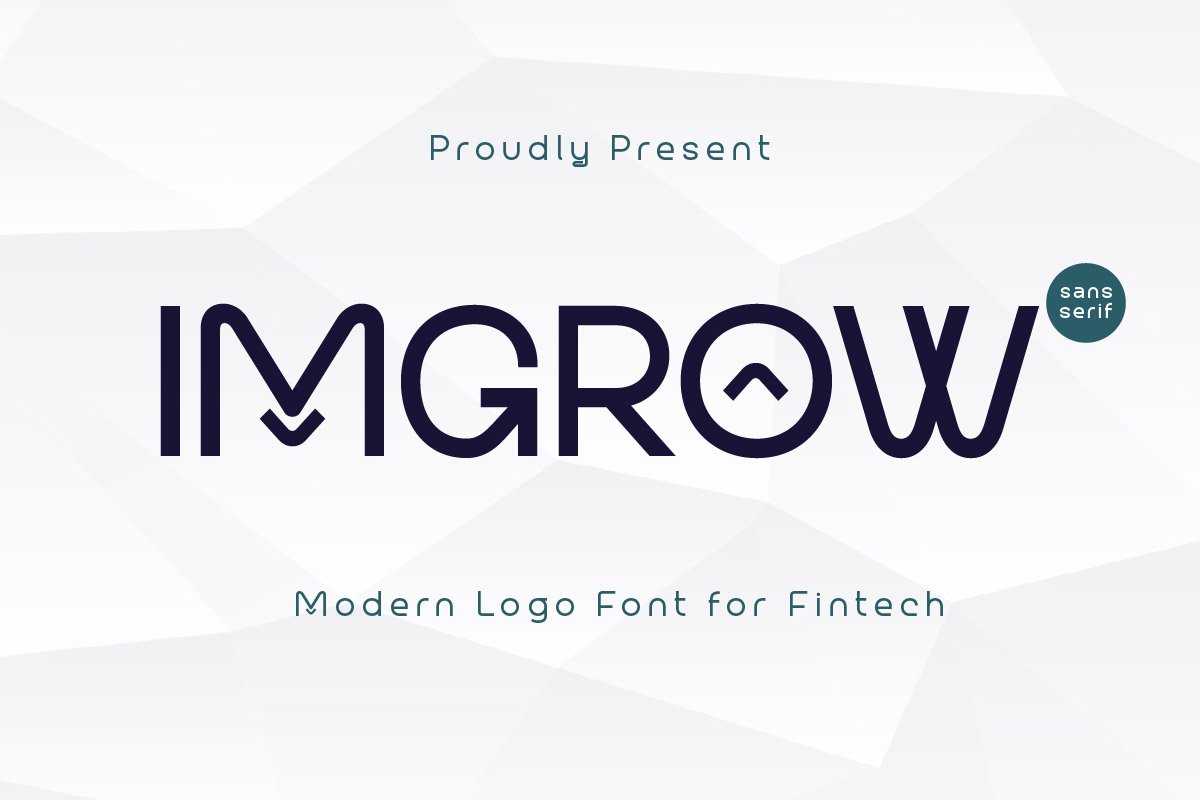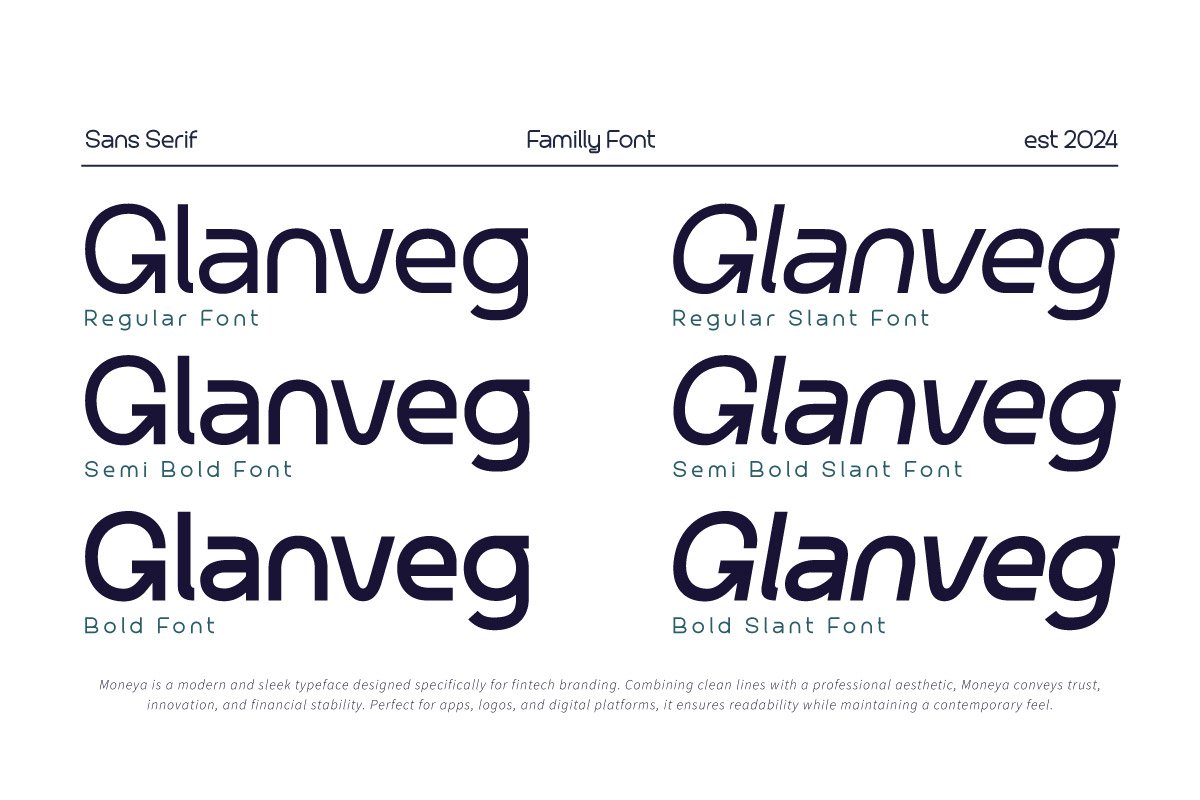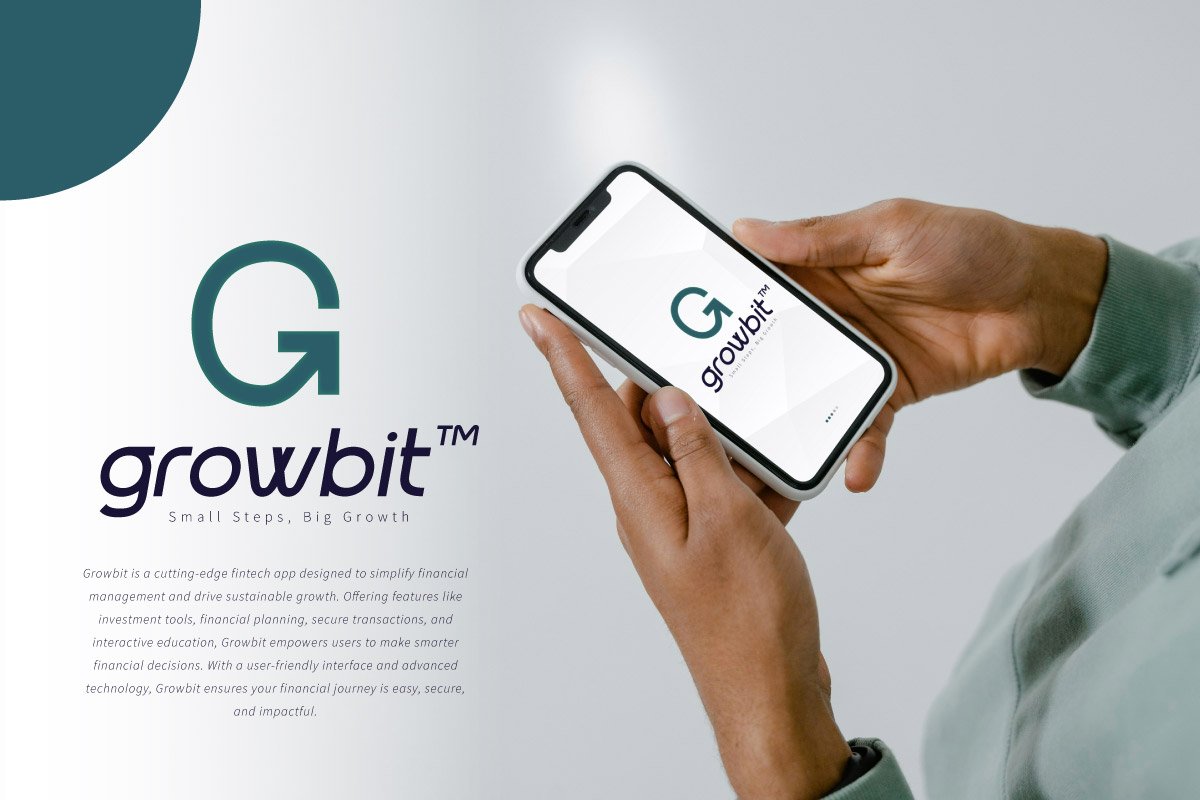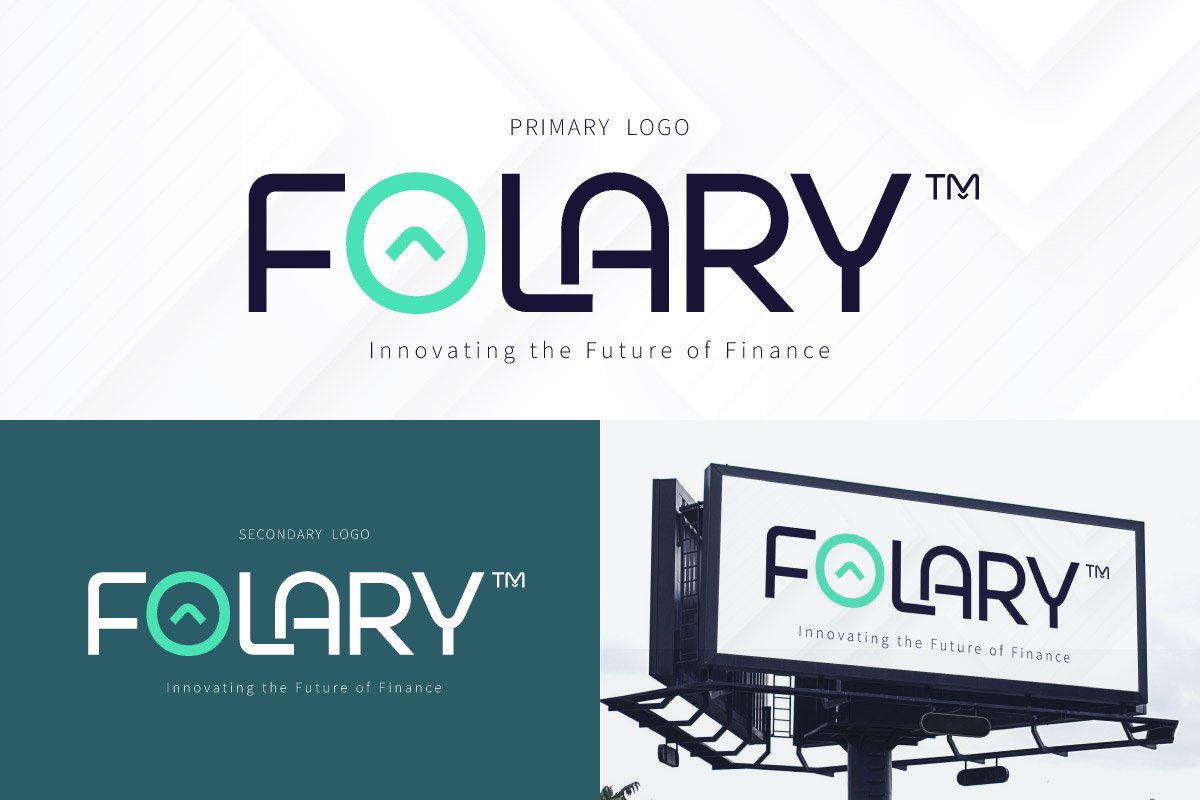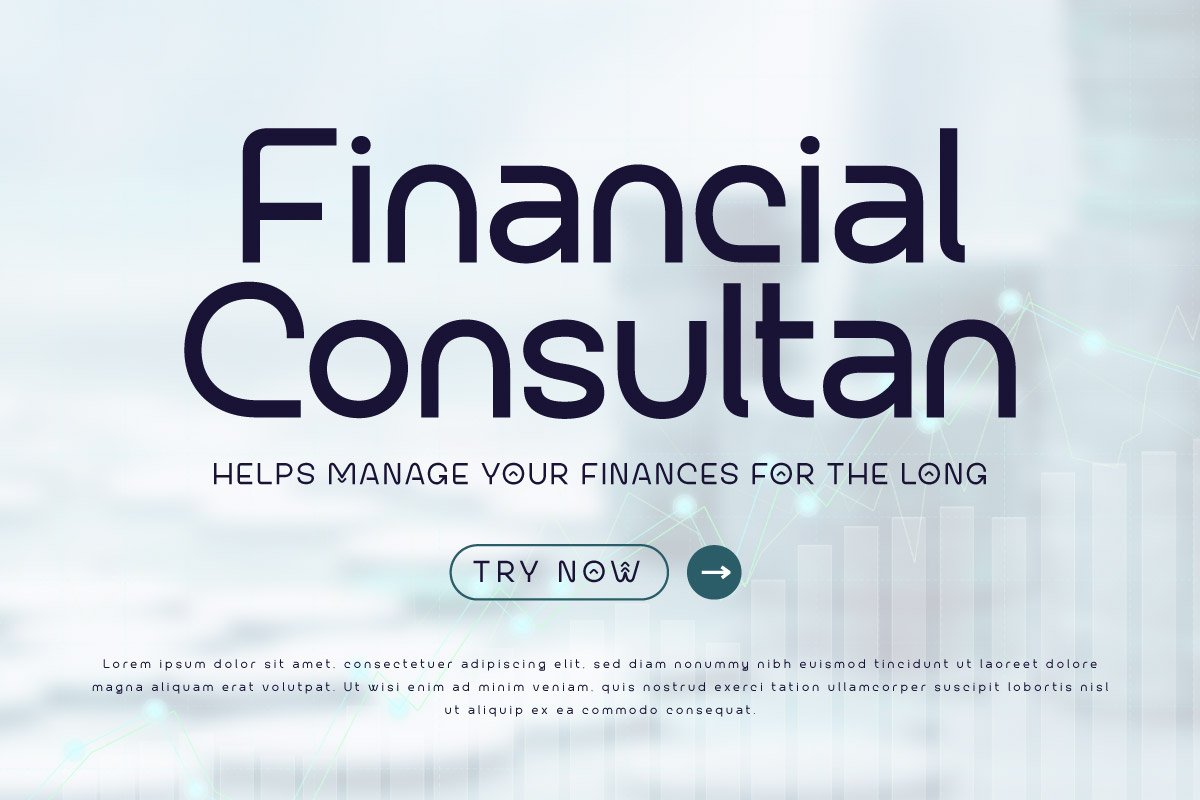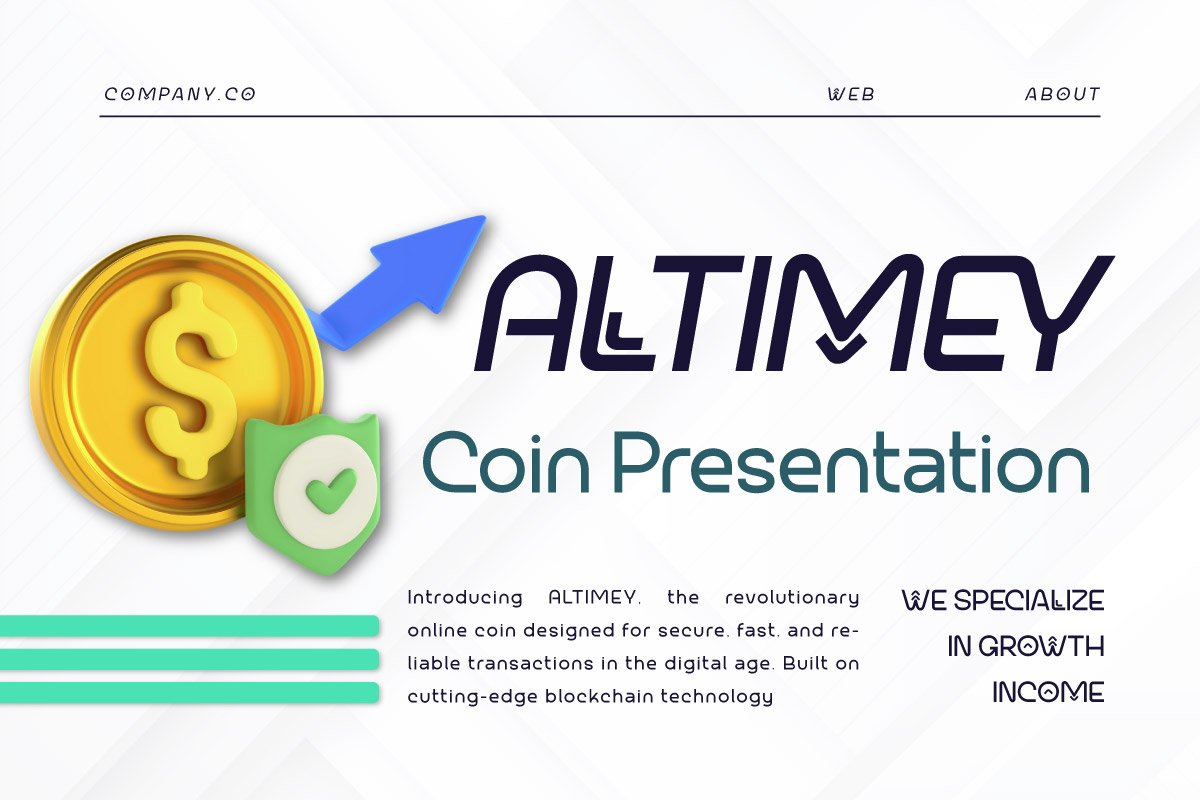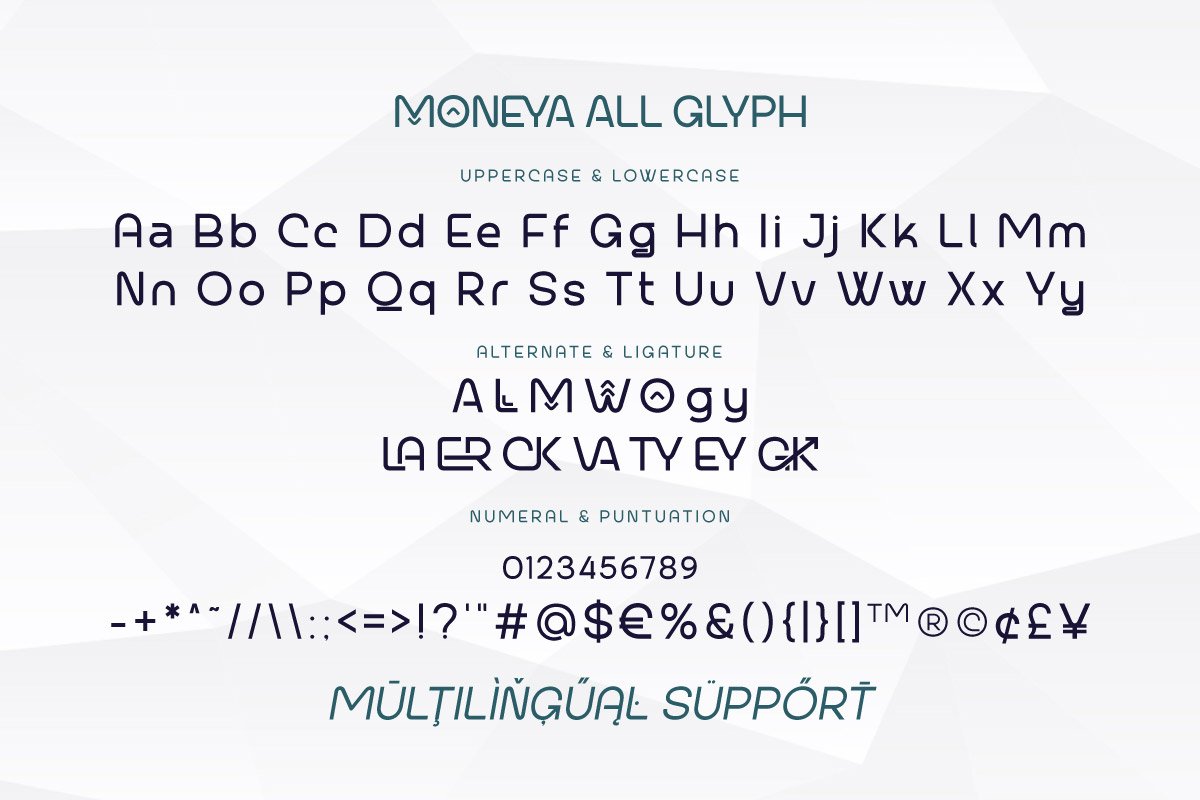
Imgrow – Modern Logo Font
Imgrow is a modern logo font crafted to embody strength, clarity, and forward-thinking design. With its sleek geometry and bold character, this typeface brings a professional yet creative edge to any project.
The family includes Regular, Semi Bold, Bold, and their Slant variations, giving you flexibility to adapt your typography to different moods and branding needs. Whether for corporate identities, product packaging, posters, digital media, or startup logos, Imgrow delivers a clean and striking visual impact.
With full support for uppercase, lowercase, numerals, punctuation, and multilingual characters, Imgrow is built to help your brand grow and connect globally.